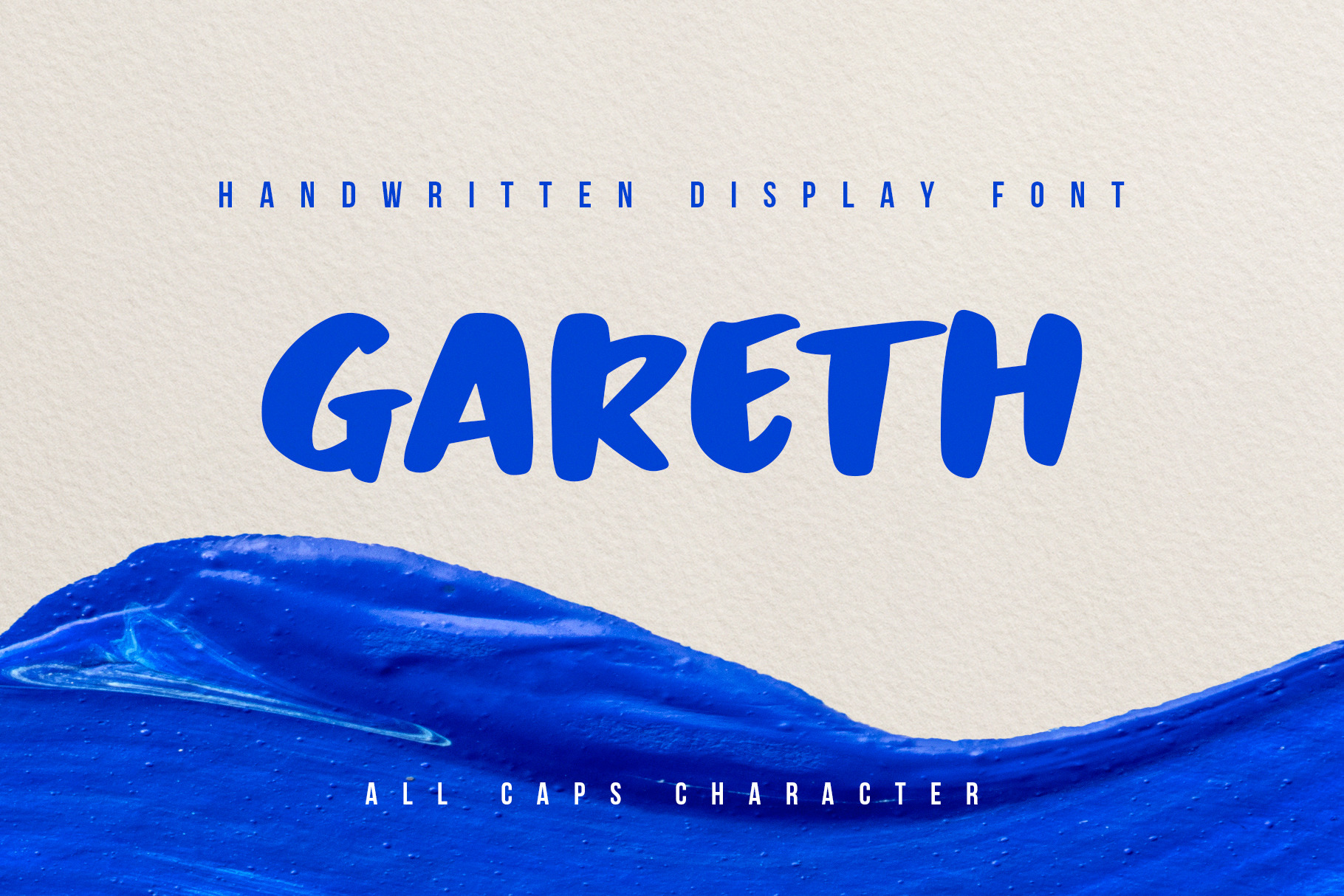
Gareth Handwritten Font
Introducing Gareth, simple handwriting style. This font offers a unique look and is very attached to your design in a classic or modern style.
Gareth is the right choice of fonts for your projects in the form of logos & branding, print media, social media posts, wedding invitations, watermarks or works that require hand styles with a distinctive style.